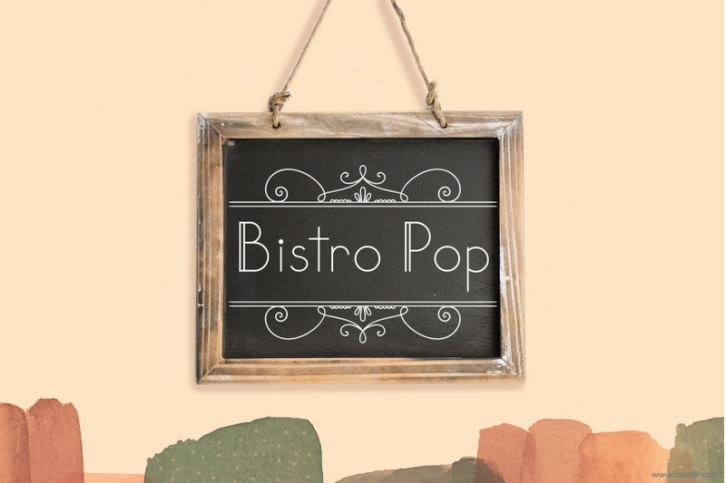
Bistro Pop Font | Sans Serif | Multilingual Font Download
Bistro Pop is a clean and rounded style typeface.
For a chic and vintage look perfect for your To do List, Invitations or even your Blog.